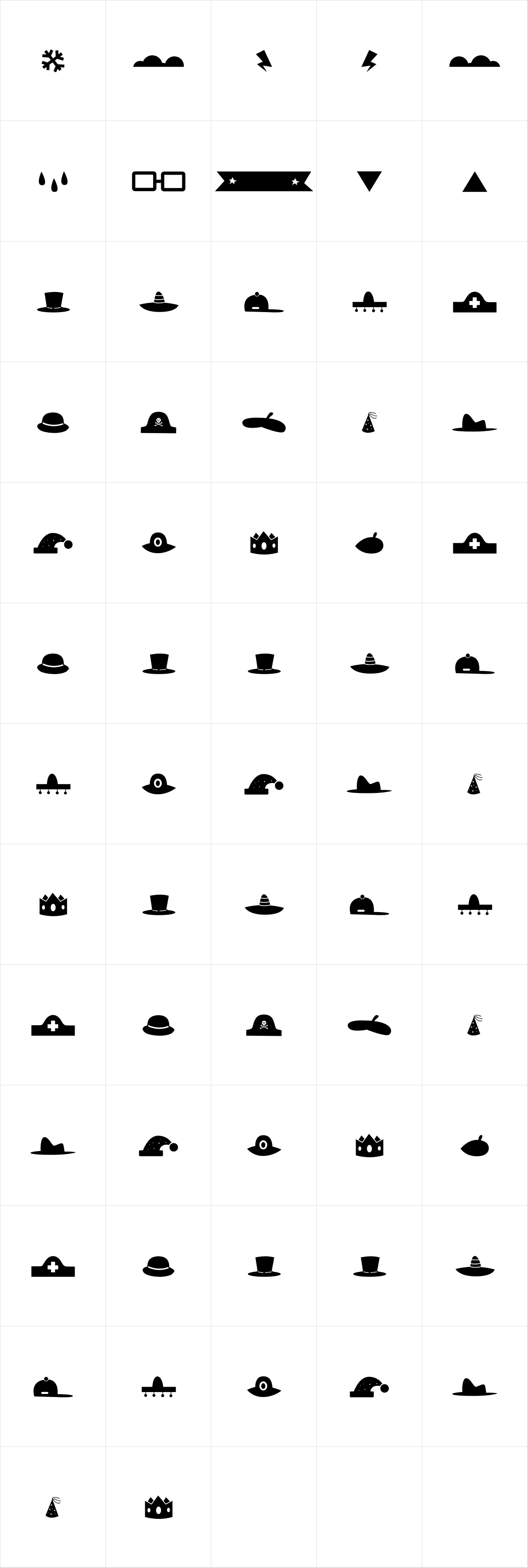
BOTOTO Ornament Font
- Bototo Family
- Bototo Family is a typeface designed especially for children's cartoons and graphics, is similar to an auction or a "foot" to make it more dynamic serif, contains the Greek and Cyrillic Rough and Italicas more style.